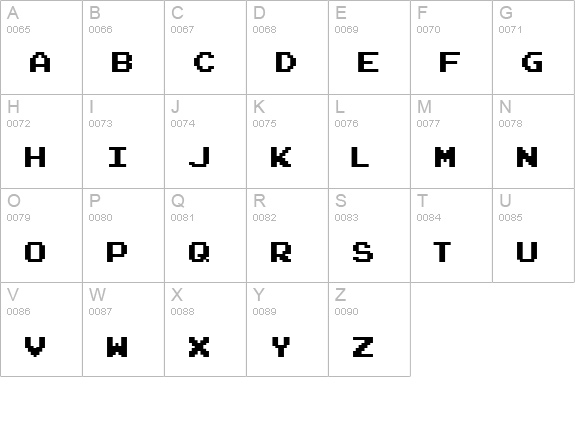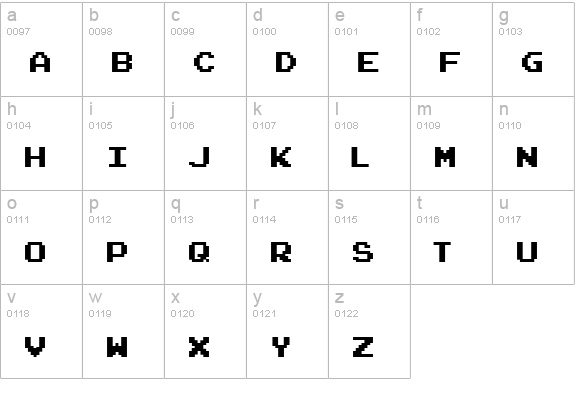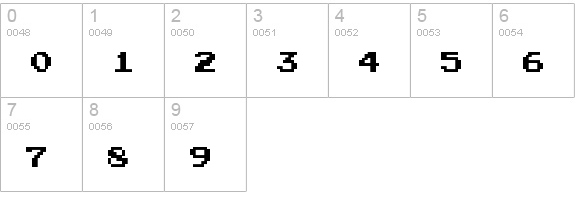
ArcadeClassic Font Details
ArcadeClassic font is a nostalgic and vibrant typeface that brings back memories of classic arcade games. With its bold and playful design, this font is perfect for adding a retro touch to your projects. The ArcadeClassic font is not only visually appealing but also versatile, making it suitable for a wide range of design applications. Best of all, this font is available for free download at FontsMarket.com, allowing you to easily incorporate its unique style into your creative projects without any cost. Take your designs to the next level with the fun and dynamic ArcadeClassic font today!